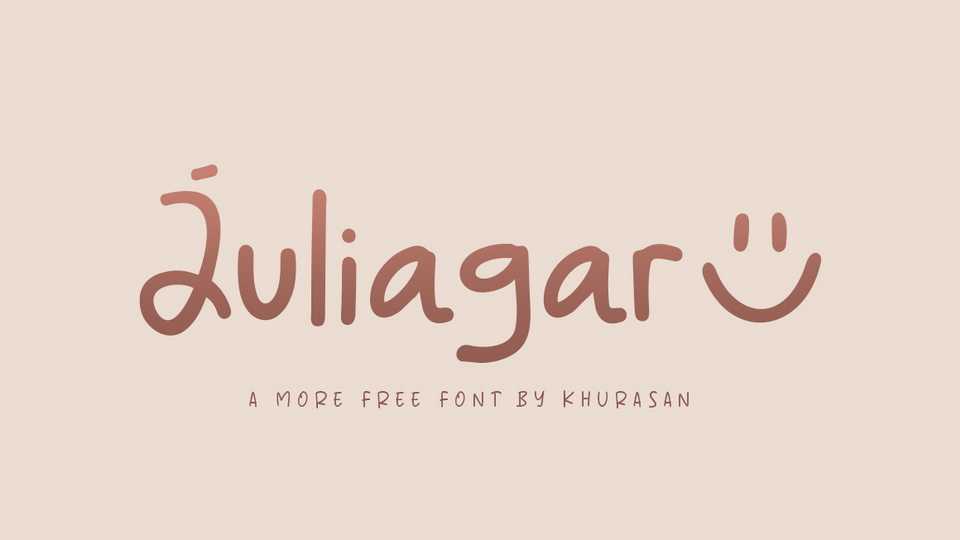
Download Juliagar font, an organic and friendly handwritten typeface. With its playful look, Juliagar will be an incredibly asset to your fonts’ library, as it has the potential to elevate any creation.